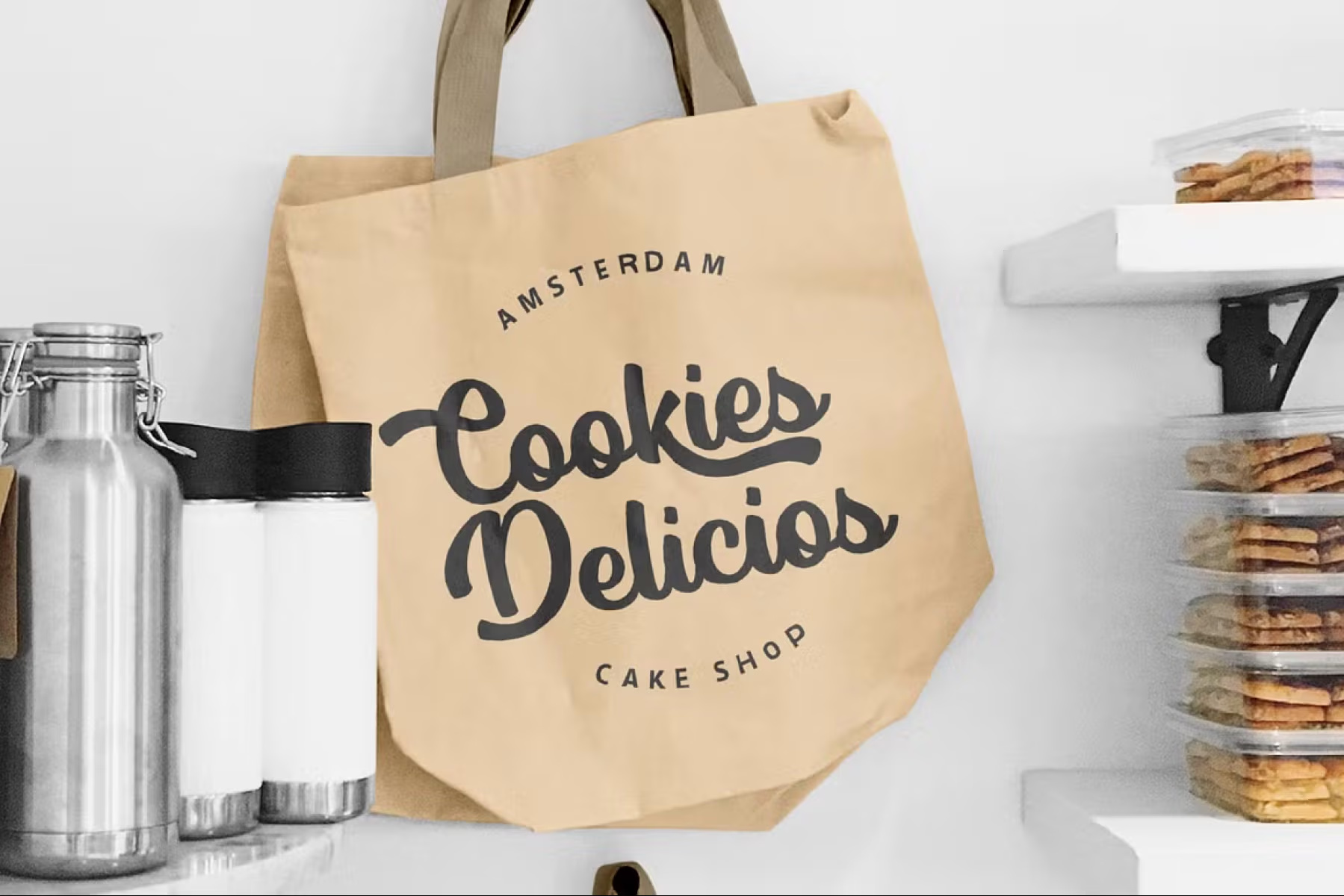
Stephanie Font
Stephanie is a stylish, handwritten brush script font with a modern calligraphy touch. Its clean yet expressive strokes make it perfect for photography watermarks, social media marketing, advertisements, logos, branding, invitations, product packaging, labels, stationery, events, and more.
Stephanie Handwritten Script Font